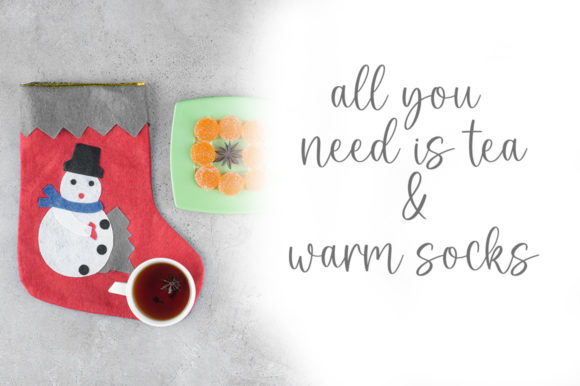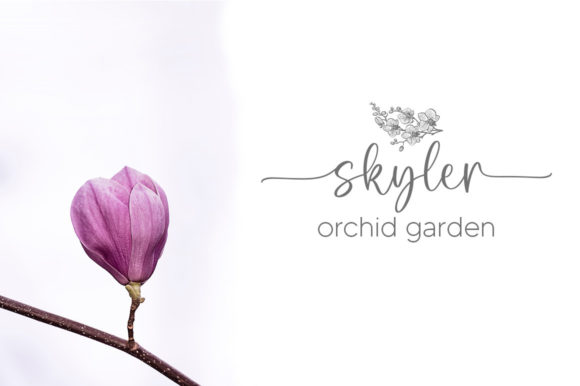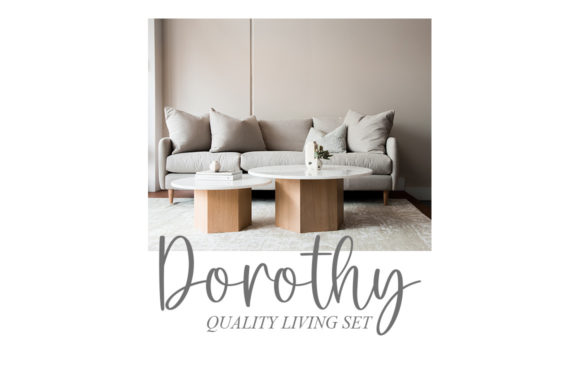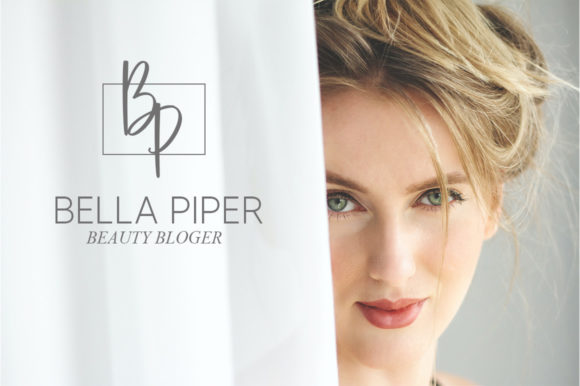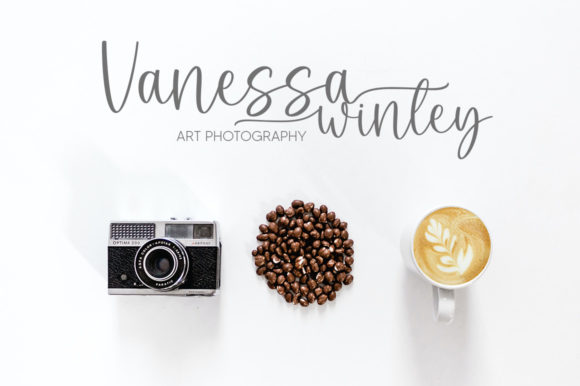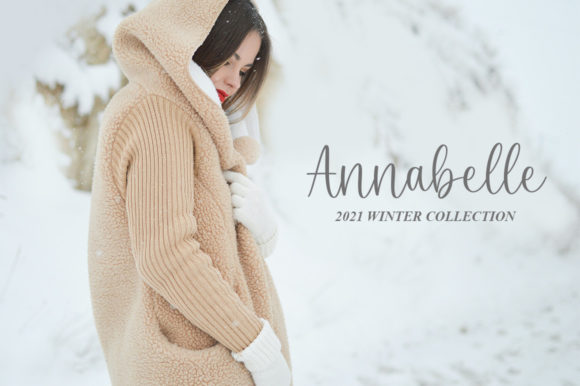
Introducing Chilly Night Font: A Delicate and Elegant Handwritten Font
Are you a designer or crafter looking for a font that exudes elegance and sophistication? Look no further than Chilly Night Font, a beautiful and delicate handwritten font that is sure to elevate your designs to the next level. In this article, we’ll take a closer look at the features and benefits of Chilly Night Font, and explore how it can be used to create stunning designs.
A Delicate and Elegant Handwritten Font
Chilly Night Font is a delicate, elegant, and flowing handwritten font that is perfect for designs that require a touch of sophistication. The font features beautiful and well-balanced characters that are carefully crafted to create a sense of harmony and elegance. Whether you’re designing a logo, a wedding invitation, or a craft project, Chilly Night Font is sure to impress.
Matching a Wide Pool of Designs
One of the standout features of Chilly Night Font is its versatility. The font’s elegant and flowing design makes it suitable for a wide range of designs, from feminine and whimsical to modern and sleek. Whether you’re creating a design for a client or for your own personal project, Chilly Night Font is sure to match your vision.
Chilly Night Font is PUA (Private Use Area) encoded, which means that you can access all of the glyphs and swashes with ease. This feature makes it easy to customize your designs and add unique touches that set your work apart. With PUA encoding, you can access a wide range of alternative characters, ligatures, and swashes that will take your designs to the next level.
Chilly Night Font is perfect for designers and crafters who are looking for a high-quality font that can be used for a variety of projects. Whether you’re creating digital designs or physical products, such as handmade cards, scrapbook pages, or fabric designs, Chilly Night Font is sure to be a valuable addition to your font collection.
Use Cases for Chilly Night Font
So, what can you use Chilly Night Font for? The possibilities are endless! Here are a few ideas to get you started:
• Logos and branding materials
• Handmade cards and gift tags
• Scrapbook pages and photo albums
• Fabric designs and textile projects
• Digital art and illustrations
Tips for Using Chilly Night Font
To get the most out of Chilly Night Font, here are a few tips to keep in mind:
• Experiment with different font sizes and colors to create visual interest
• Use the font’s swashes and glyphs to add unique touches to your designs
• Pair Chilly Night Font with other fonts to create a unique and interesting combination
• Use the font for headings, titles, and other design elements that require a touch of elegance
In conclusion, Chilly Night Font is a beautiful and elegant handwritten font that is perfect for designers and crafters who are looking for a high-quality font that can be used for a variety of projects. With its delicate and flowing design, PUA encoding, and versatility, Chilly Night Font is sure to become a valuable addition to your font collection. So why wait? Download Chilly Night Font today and start creating stunning designs that will leave a lasting impression!